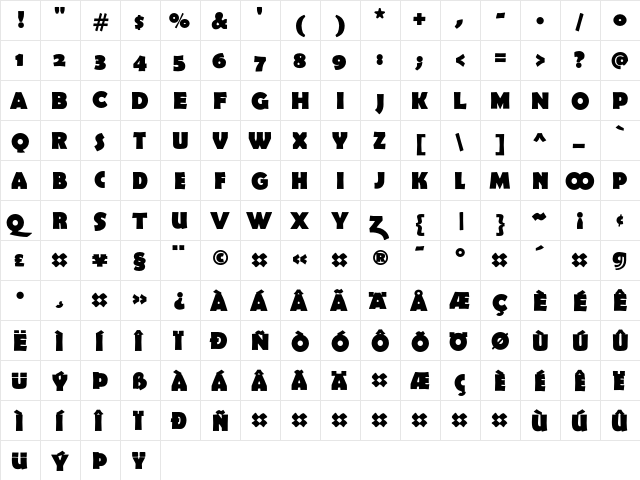
Berlinsans BoldExpert
Design Context for Berlinsans Typeface
Berlinsans offers clean, dependable letterforms without strong stylistic allegiance, making it a practical choice for designers who need flexibility. Its bold stroke weight gives it real presence on the page.
Pro Tip: Pair Berlinsans with a font of contrasting weight or personality to build a more expressive typographic hierarchy.